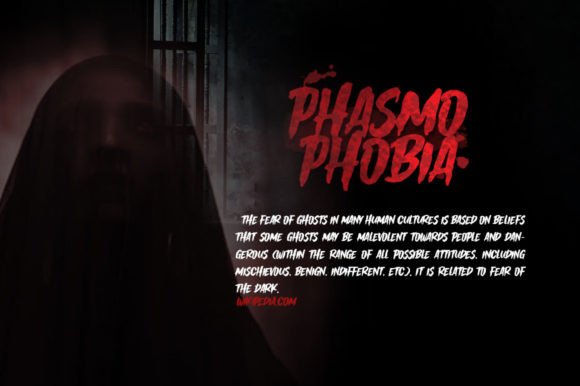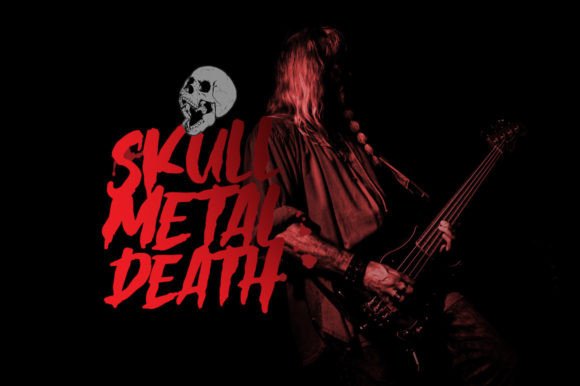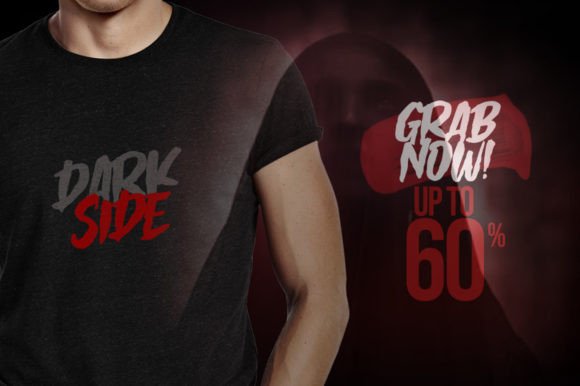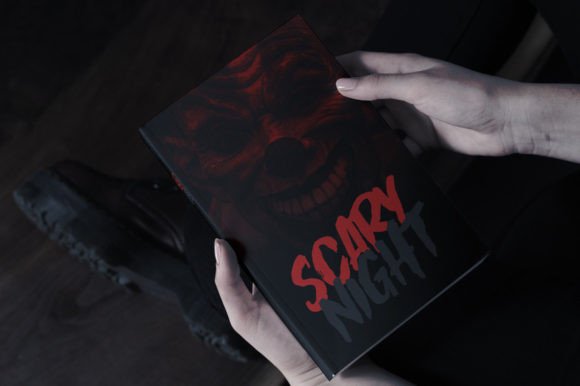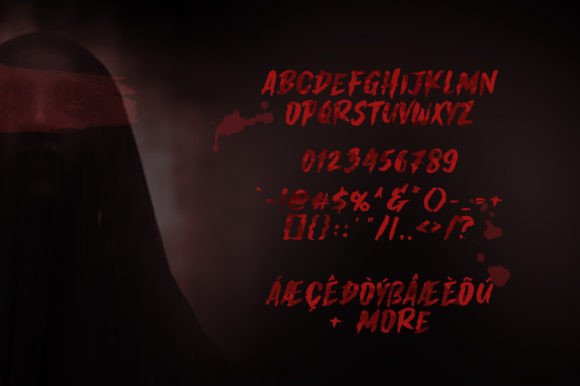
Unleash the Spook: Exploring the Eerie Charm of Ghostphobia Font
Are you a designer or crafter looking to add a touch of horror and mystery to your projects? Look no further than the Ghostphobia Font, a unique and captivating display font that’s perfect for creating spooky and eye-catching designs. In this article, we’ll dive into the world of Ghostphobia Font, exploring its features, uses, and benefits for designers and crafters.
The Ghostphobia Font: A Hauntingly Beautiful Typeface
The Ghostphobia Font is a one-of-a-kind display font that’s sure to send shivers down the spine. Its eerie and captivating design makes it perfect for projects that require a touch of horror and mystery. Whether you’re working on a Halloween-themed design, a horror movie poster, or a spooky craft project, this font is sure to impress.
What Makes Ghostphobia Font So Special?
So, what sets Ghostphobia Font apart from other fonts? Here are a few features that make it truly unique:
• Unique Design: The Ghostphobia Font boasts a distinctive design that’s both haunting and beautiful. Its irregular shapes and lines create a sense of eeriness that’s perfect for horror and Halloween-themed designs.
• Versatility: Despite its spooky vibe, the Ghostphobia Font is surprisingly versatile. It looks great in a variety of contexts, from bold and dramatic to subtle and eerie.
• Display Font: As a display font, Ghostphobia is designed to make a statement. It’s perfect for headlines, titles, and other prominent text elements.
Using Ghostphobia Font in Your Designs
So, how can you use the Ghostphobia Font in your designs? Here are a few ideas to get you started:
• Halloween Themes: The Ghostphobia Font is perfect for Halloween-themed designs, from party invitations to spooky decorations.
• Horror Movie Posters: Create a haunting and eye-catching horror movie poster with the Ghostphobia Font.
• Spine-Chilling Crafts: Use the Ghostphobia Font to add a touch of horror to your craft projects, from spooky signs to eerie jewelry.
Benefits of Using Ghostphobia Font
So, why should you choose the Ghostphobia Font for your designs? Here are a few benefits:
• Adds a Touch of Horror: The Ghostphobia Font is designed to evoke a sense of horror and mystery, making it perfect for projects that require a spooky vibe.
• Stand Out from the Crowd: With its unique design, the Ghostphobia Font is sure to make your designs stand out from the crowd.
Tips and Tricks for Using Ghostphobia Font
Here are a few tips and tricks for getting the most out of the Ghostphobia Font:
• Experiment with Different Sizes: The Ghostphobia Font looks great in a variety of sizes, from bold and dramatic to subtle and eerie.
• Pair with Other Fonts: Try pairing the Ghostphobia Font with other fonts to create a unique and eye-catching design.
• Use in Combination with Images: The Ghostphobia Font looks great in combination with spooky images and graphics.
In conclusion, the Ghostphobia Font is a unique and captivating display font that’s perfect for designers and crafters looking to add a touch of horror and mystery to their projects. With its eerie and haunting design, versatility, and ease of use, this font is sure to become a go-to choice for anyone looking to create spooky and eye-catching designs. So why wait? Download the Ghostphobia Font today and unleash the spook in your designs!